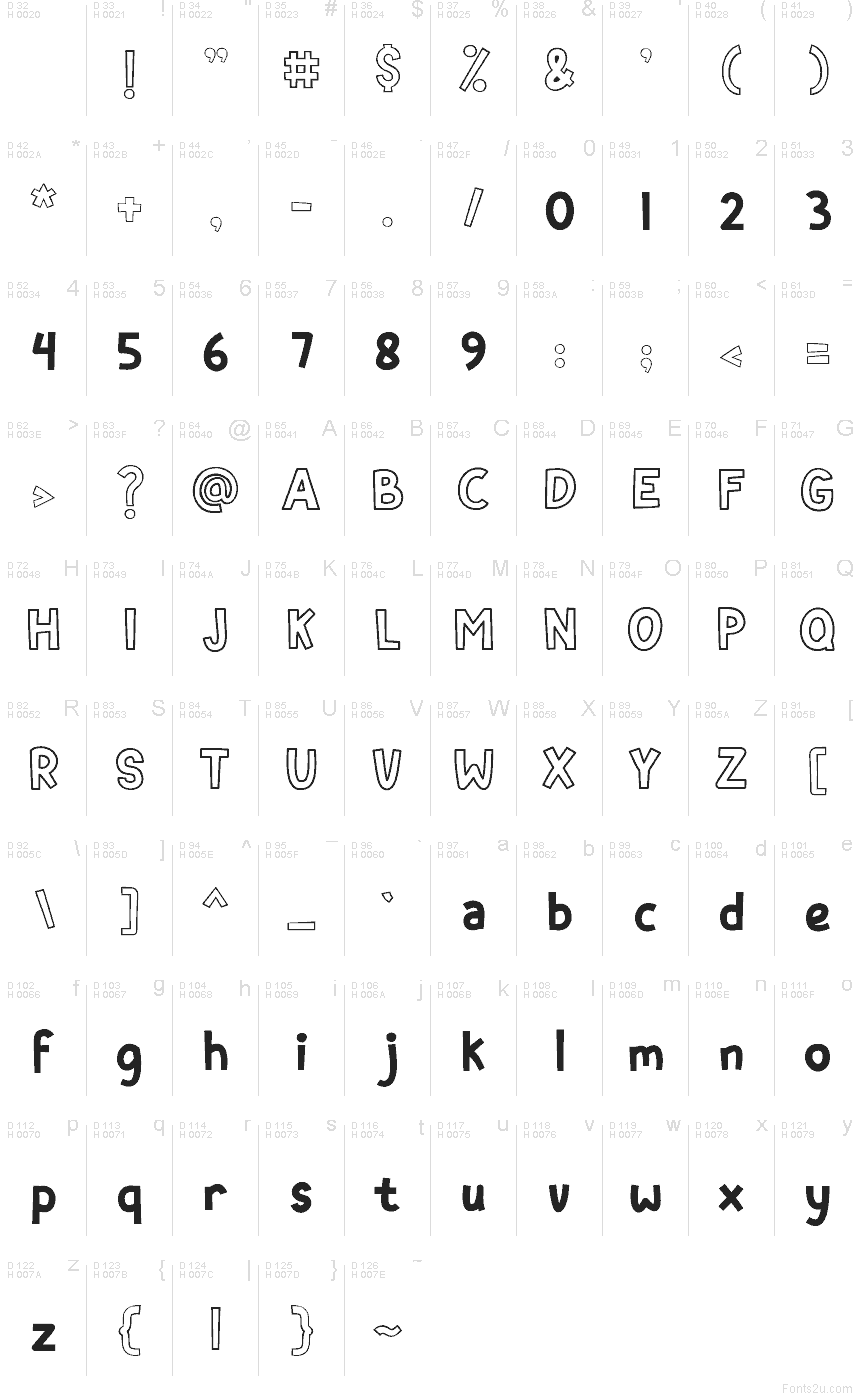
NEROS
Neros font by Tokokoo Studio is a free cartoon outlined display typeface with the feel of hand-drawn bubble letters traced in bold marker. Its chunky, rounded shapes and slightly wobbly outlines give every word a doodled, kid-friendly energy, like something lifted straight from a sketchbook or comic panel. The black outline frames each letter cleanly, so text stays legible even when layered over bright, busy backgrounds.
Using Neros, titles instantly gain a playful, approachable voice that’s great for children’s book covers, birthday invitations, classroom posters, snack or toy packaging, comics, and YouTube thumbnails. This free font loves to be set big, where the thick outlines can really pop; pair it with a simple rounded sans serif for small supporting text to keep everything easy to read and visually balanced.